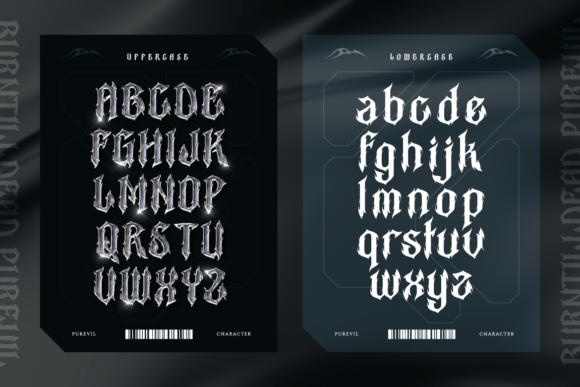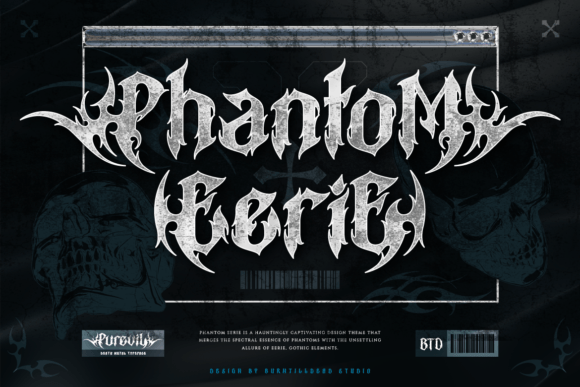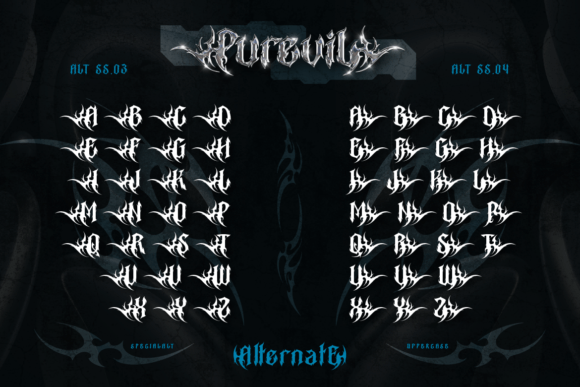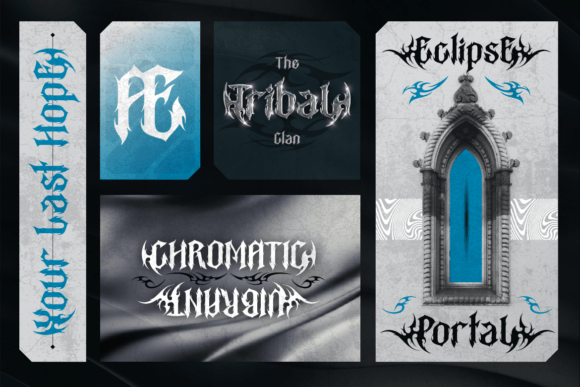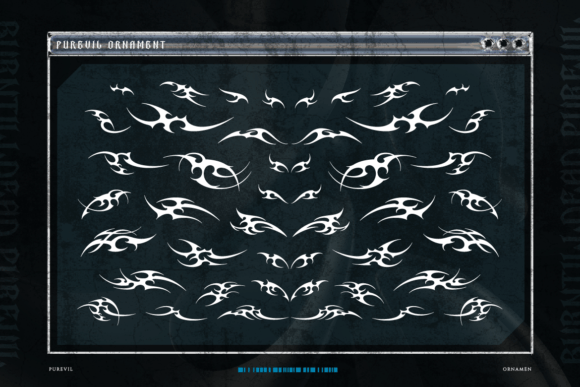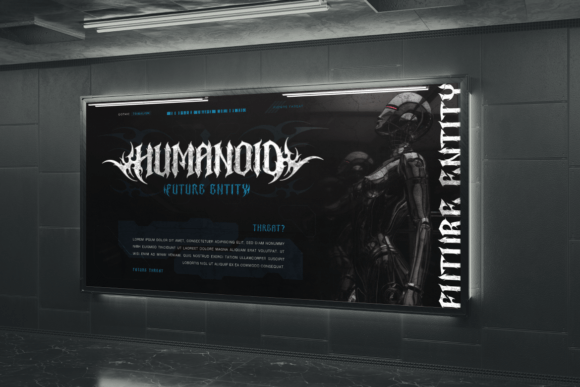
Introduction to Purevil Font
Imagine you’re brainstorming ideas for your next album cover, but nothing seems to stick. You’re scrolling through design resources, searching for the perfect font to give your artwork that extra oomph. And then, you stumble upon it – the Purevil Font, a tribal metal font that’s as bold as it is beautiful. Its unique shape and modern design make it the perfect choice for metal-themed projects.
Whether you’re a seasoned designer or just starting out, the Purevil Font is a valuable resource that can elevate your creative project to the next level. With its high-quality design and transparent background, you can easily integrate it into your artwork without any hassle. And the best part? It’s available for free download, making it an accessible design resource for designers of all levels.
Key Features of Purevil Font
- High-quality, unique design for creative projects and graphic design resources.
- Transparent background, allowing for easy customization and versatility in design applications.
- Designed to be highly scalable, with a resolution of up to 72 dpi, making it suitable for both print and digital applications.
- Font size ranges from 8 to 72 points, providing a wide range of options for designers.
- Purevil Font is a great addition to any design resource library, offering a unique and creative touch to any project.
Honest Review: Purevil Font
I recently stumbled upon the Purevil Font while searching for a unique design resource for my creative project. As a designer, I was excited to dive in and see what it had to offer.
One of the standout features of the Purevil Font is its high-quality design. The font is crisp and clean, making it perfect for a variety of applications, from digital designs to print materials. I particularly appreciated the transparent background, which made it easy to incorporate into my design without any distractions.
Here are some of the things that work well with the Purevil Font:
- ✨ High-quality design with clear lines and shapes
- ✨ Transparent background for easy integration into designs
- ⚠️ Limited character set, which may be a concern for designers who need a wide range of glyphs
- ⚠️ Some characters may not display consistently across different platforms
Overall, I’m impressed with the Purevil Font and would recommend it to designers looking for a unique and high-quality font for their creative projects. With a little creativity, the limitations can be worked around, and the results are well worth the effort.
Purevil Font
Tips for Getting the Most Out of Purevil Font
Purevil Font is perfect for a variety of creative projects, including logos, posters, and social media graphics. Its high quality and versatility make it a great addition to any design resource. You can also use Purevil Font for web design, print design, and even presentations.
Comic Sans MS is a popular sans-serif font known for its friendly and approachable feel, making it suitable for creative projects and design resources that require a casual tone. It’s available for free download and offers a high-quality alternative to Purevil Font. When to use: Brochures, newsletters, and other materials that require a lighthearted atmosphere.
Great Vibes is a modern script font that exudes a sense of elegance and sophistication, making it perfect for design projects that demand a high-end feel. It features a transparent background and is available for free download, offering a high-quality alternative to Purevil Font. When to use: Wedding invitations, luxury branding, and other creative projects that require a touch of sophistication.